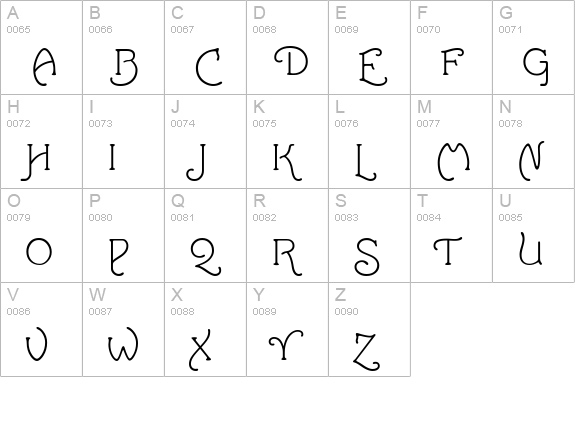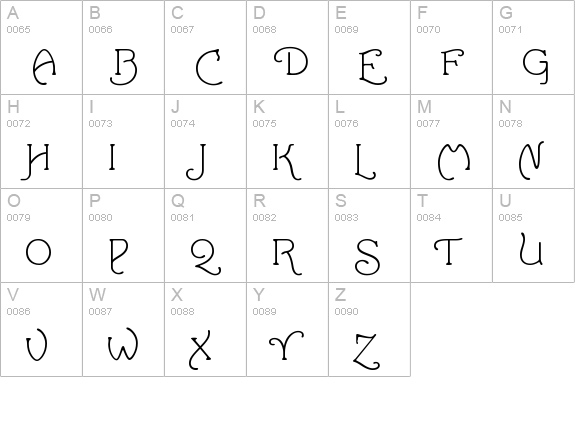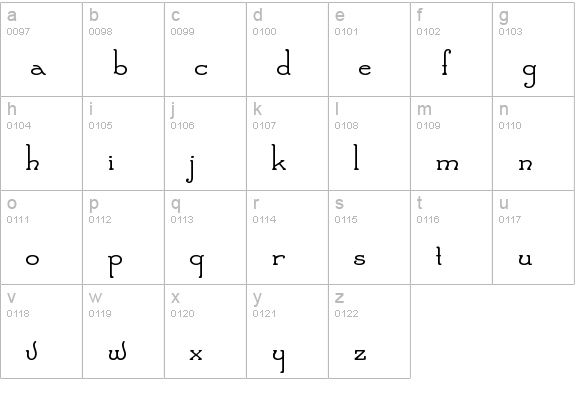
Introducing Santa's Sleigh font, a whimsical and enchanting typeface that will transport you straight into the magical world of the holiday season. With its delicate curves and playful letterforms, Santa's Sleigh font captures the spirit of joy and wonder that encompasses this festive time of year. This font is the perfect companion for all your holiday-themed projects, from greeting cards and invitations to social media graphics and home decor. Whether you're creating a whimsical Christmas party flyer or designing a heartfelt holiday message, Santa's Sleigh font will add that extra touch of charm and nostalgia. What makes Santa's Sleigh font even more delightful is that it is freely available to download at FontsMarket.com. Yes, you read that right – this charming typeface can be yours without any cost. We believe that spreading the holiday cheer should be accessible to everyone, and what better way to do so than by offering Santa's Sleigh font completely free of charge? So, don't miss out on this incredible opportunity to bring a touch of magic to your design projects. Download Santa's Sleigh font today from FontsMarket.com and let your creativity soar. With its whimsical charm and freely accessible nature, this font is sure to become a beloved addition to your typographic toolkit. Spread the joy and create holiday magic with Santa's Sleigh font!